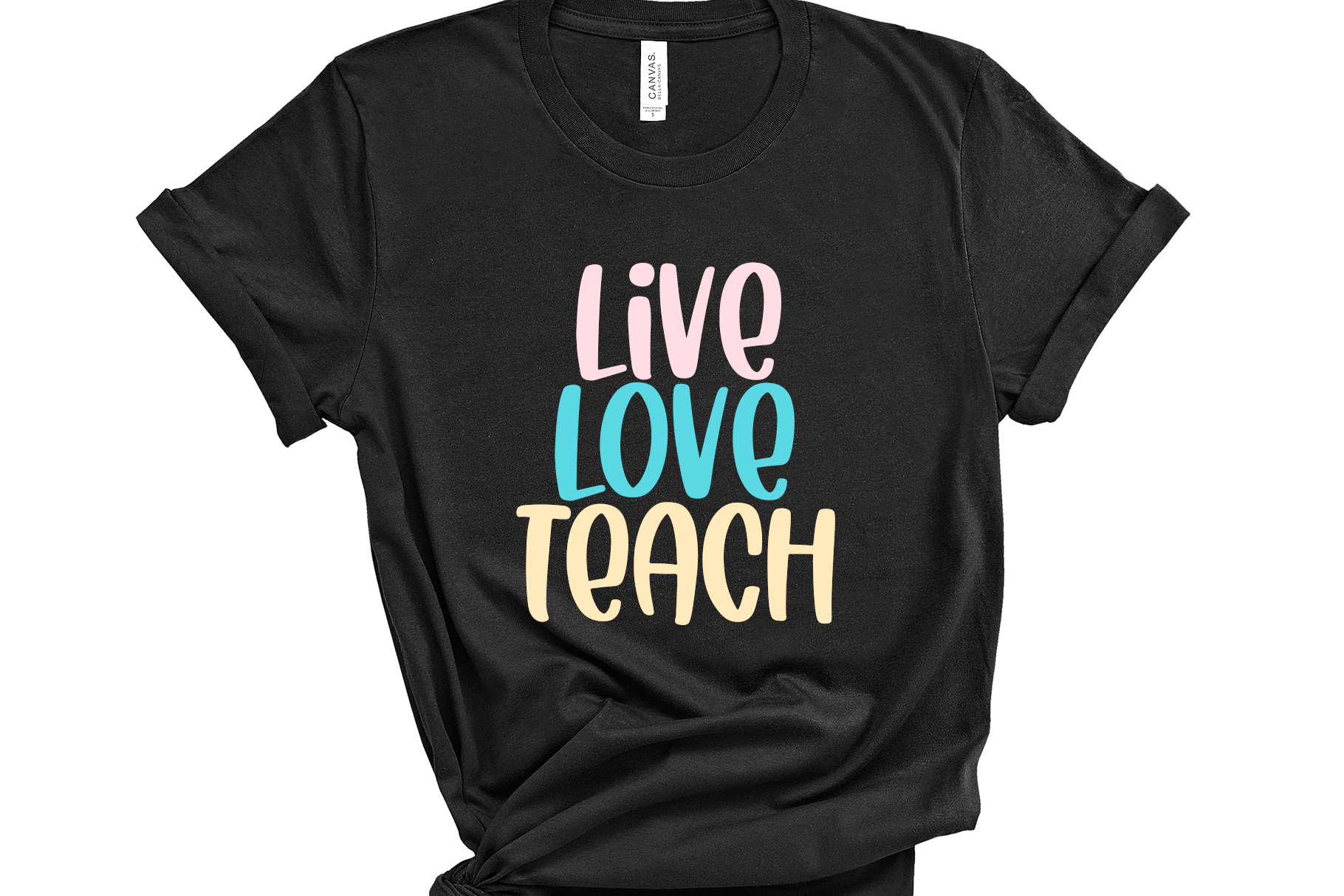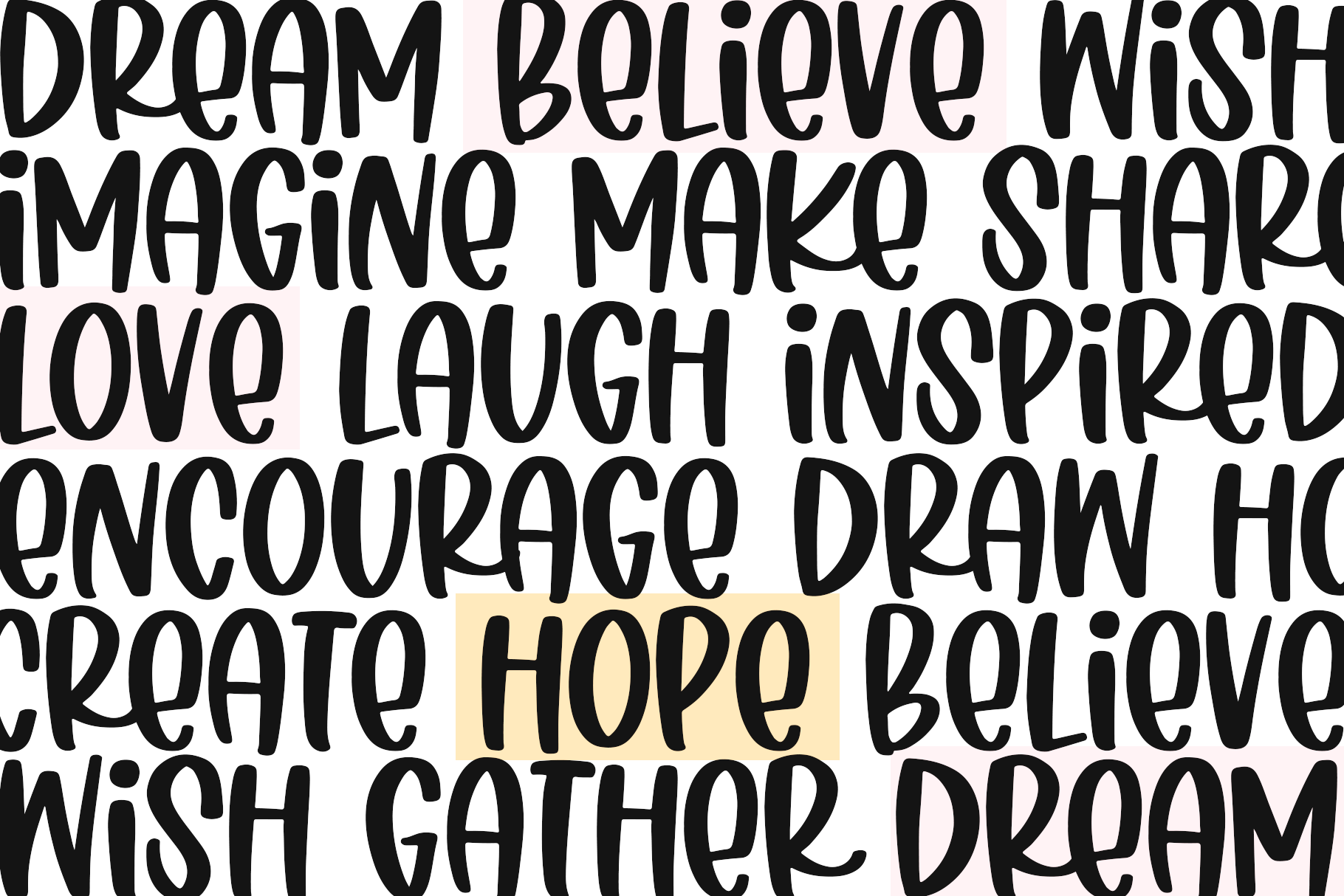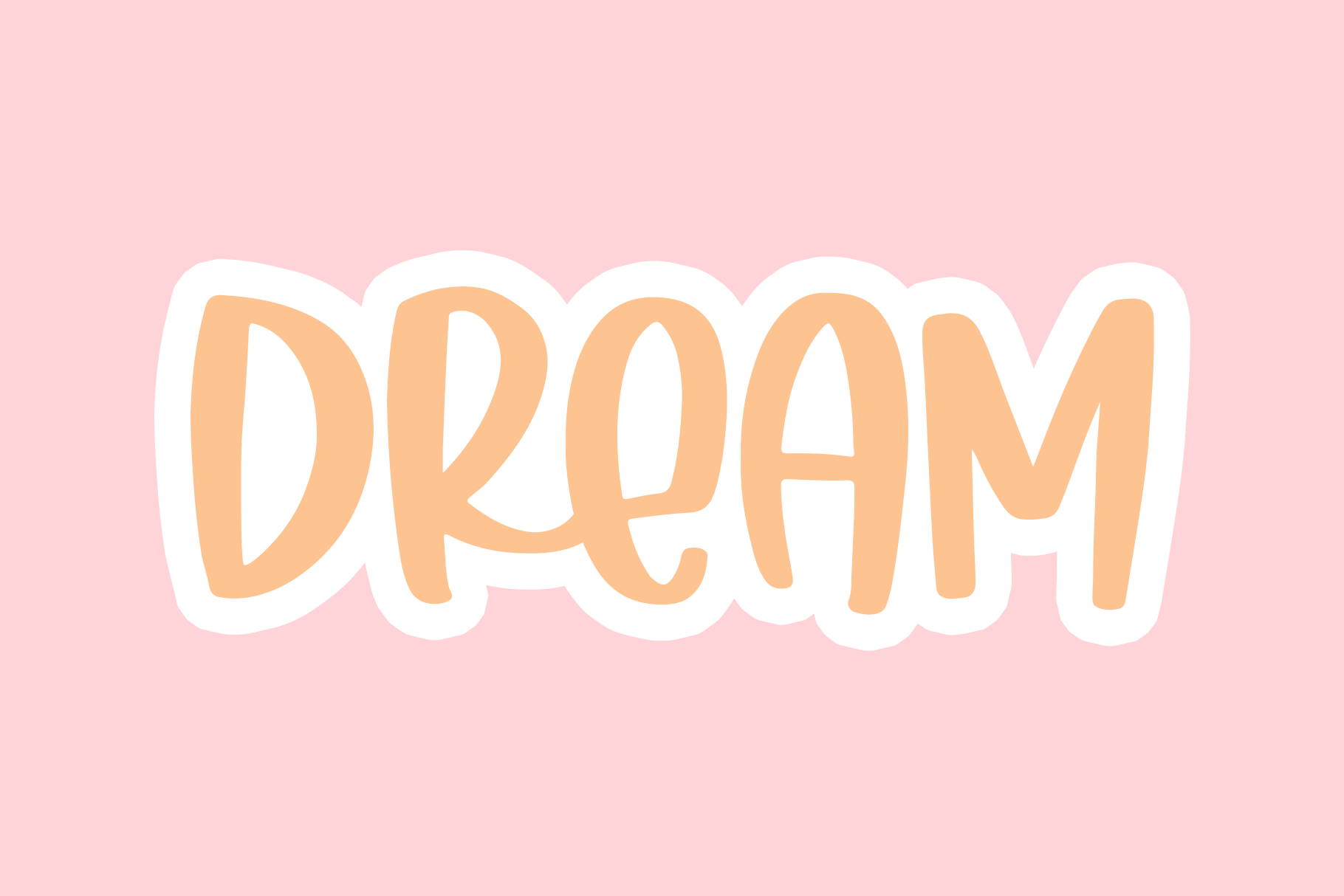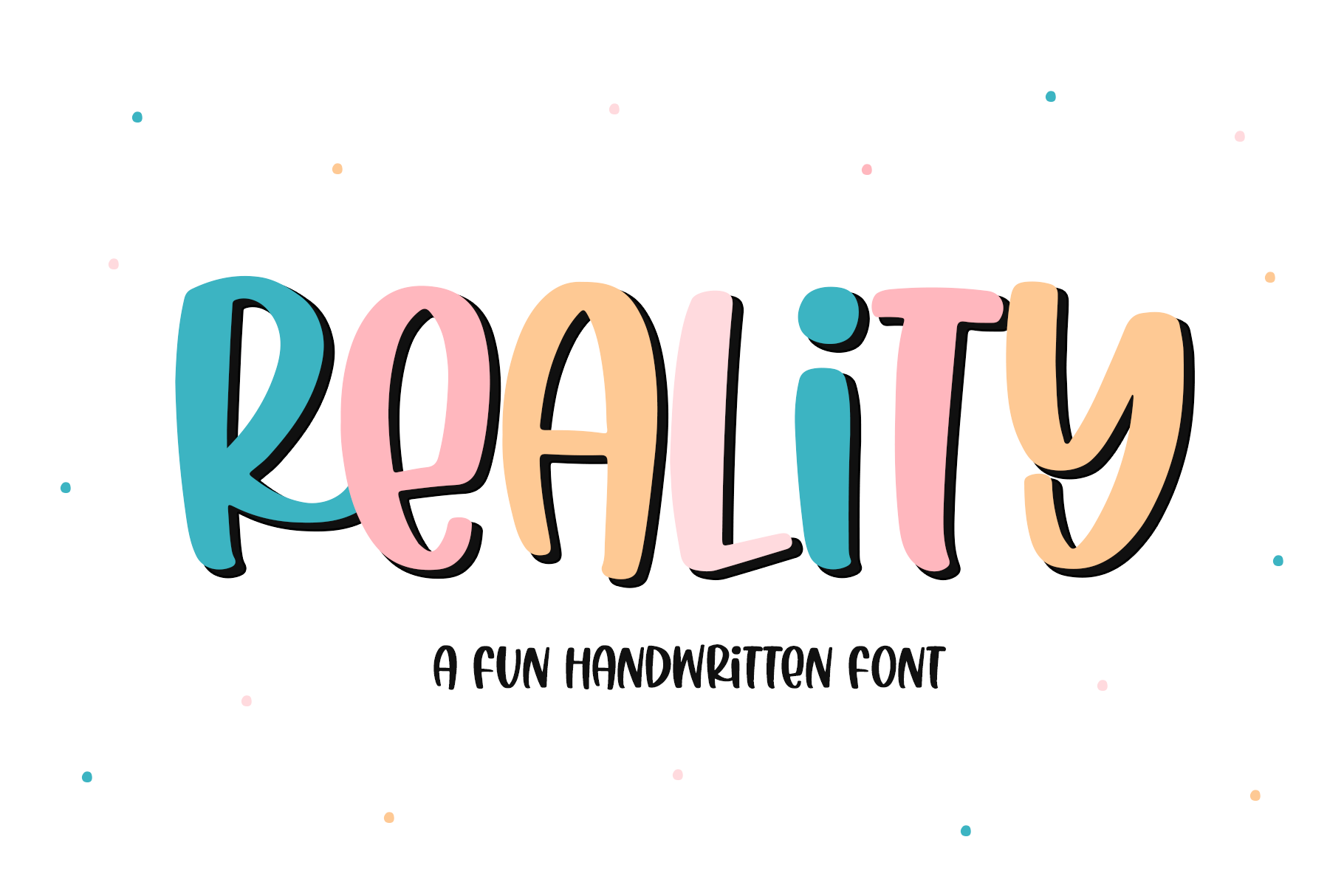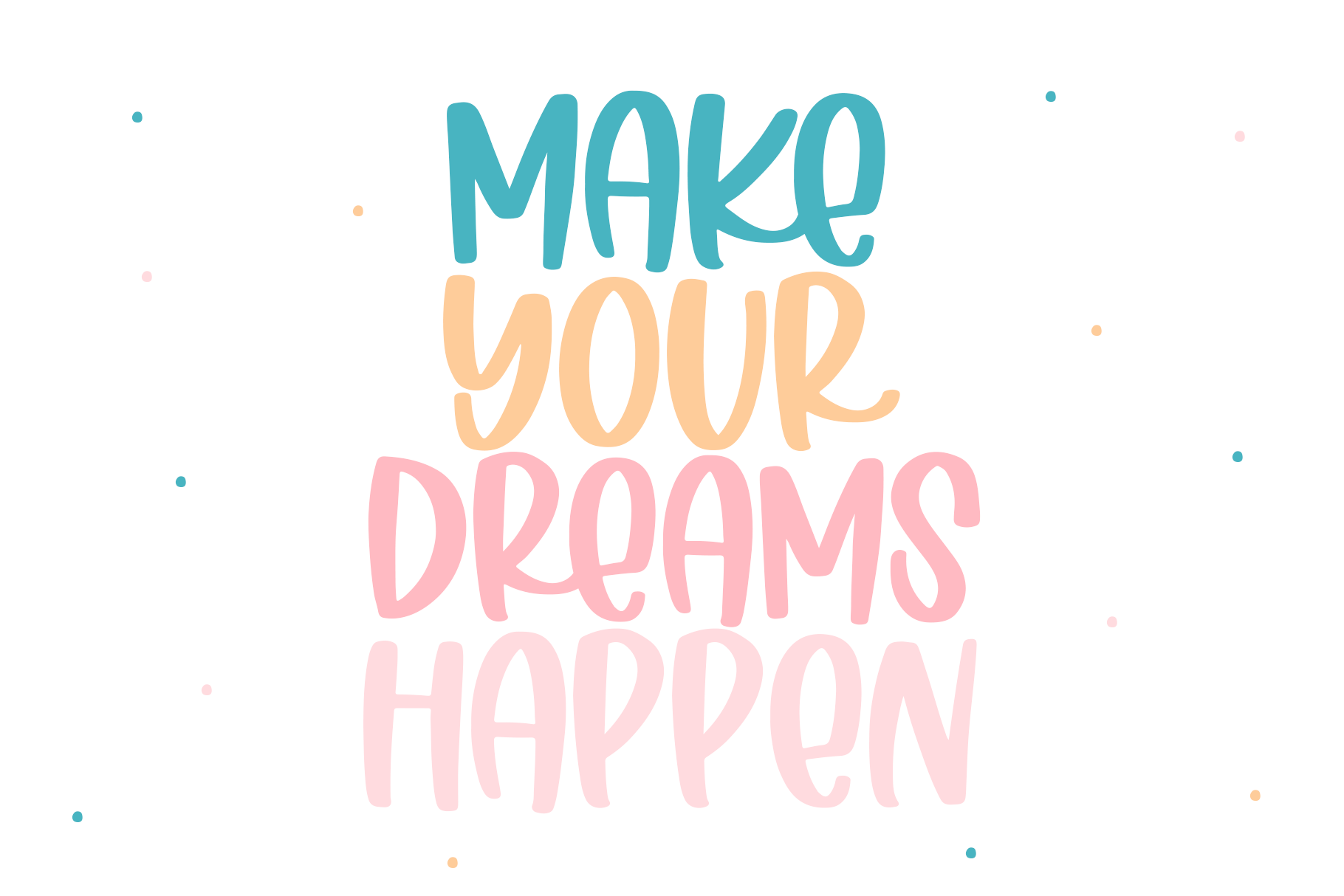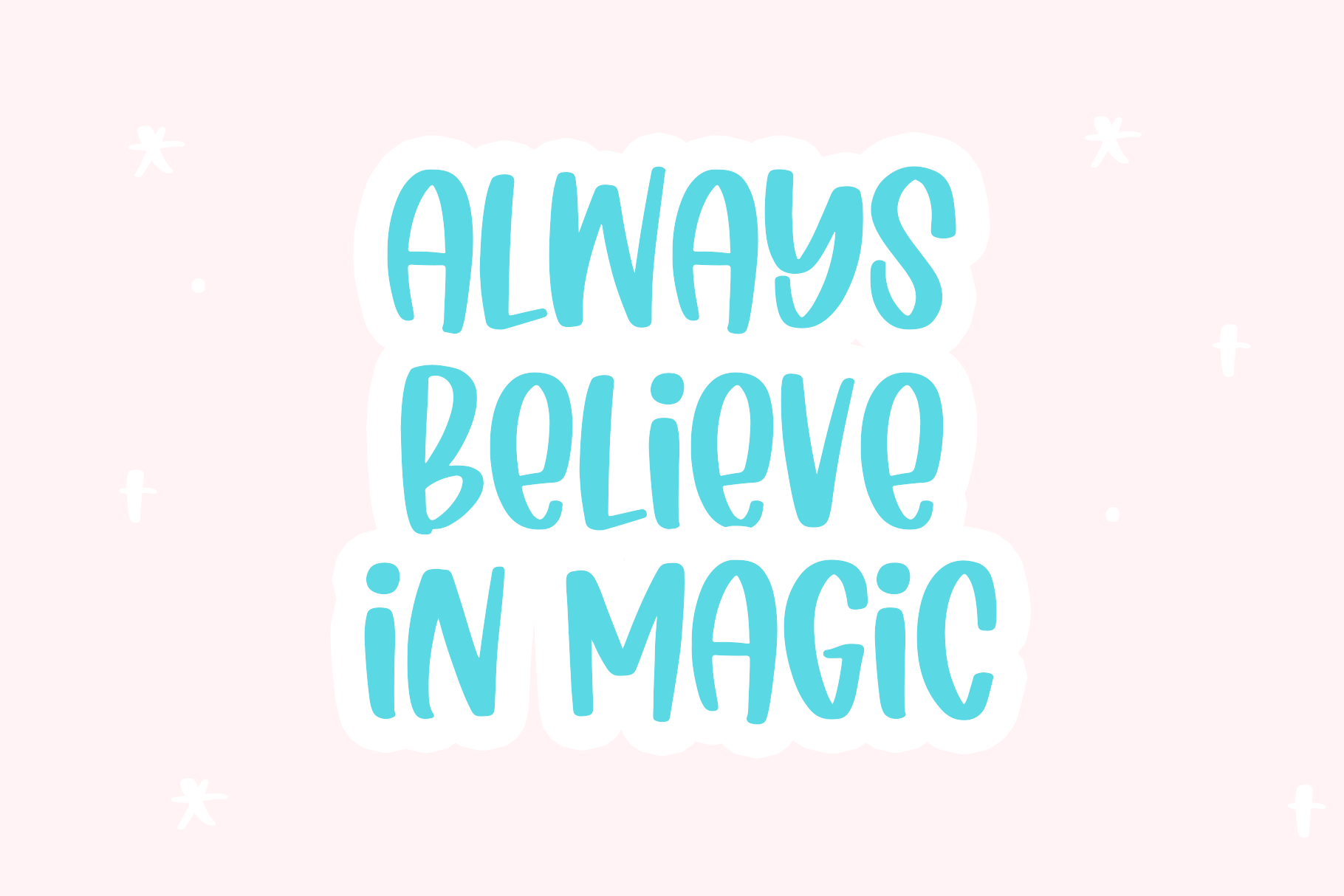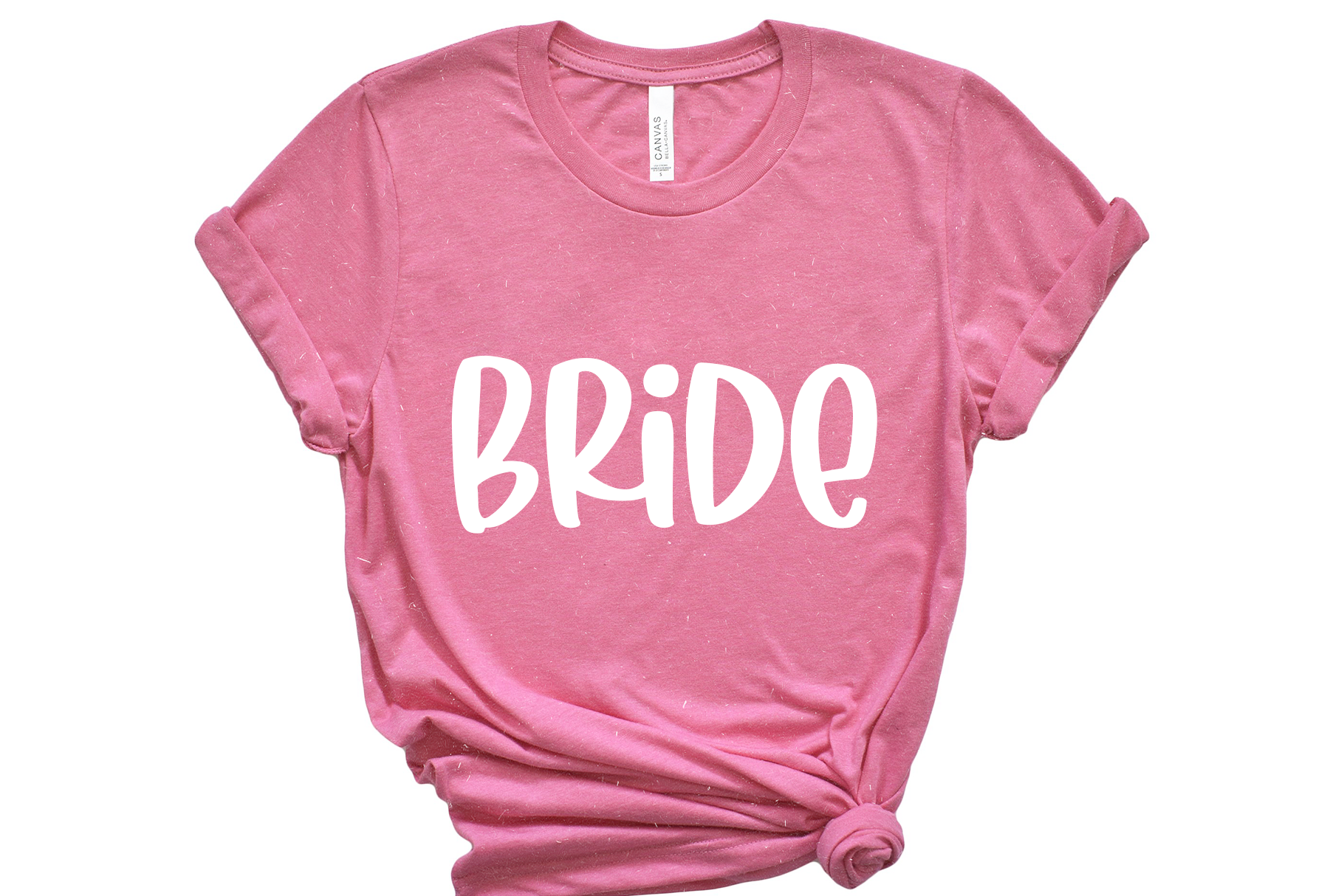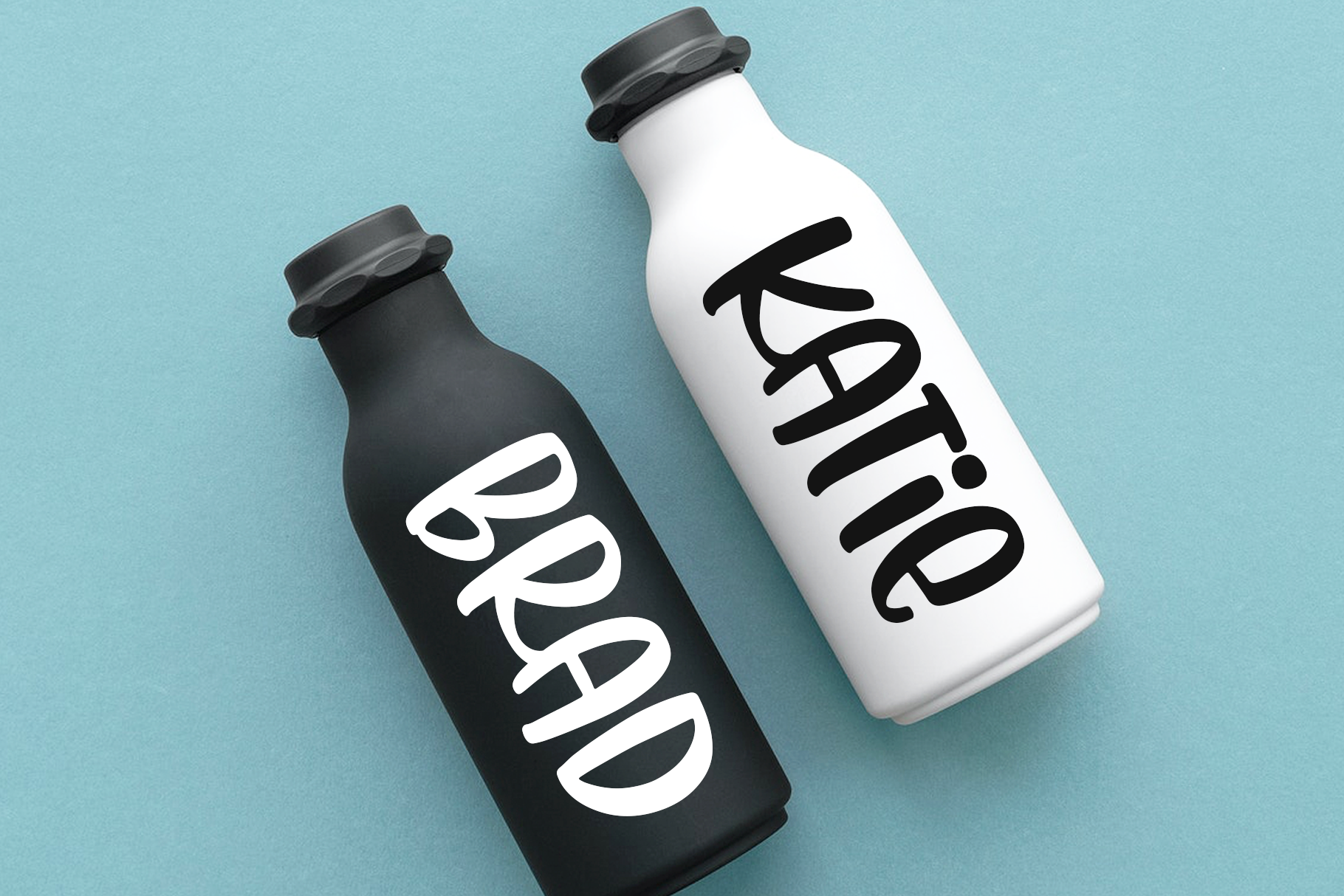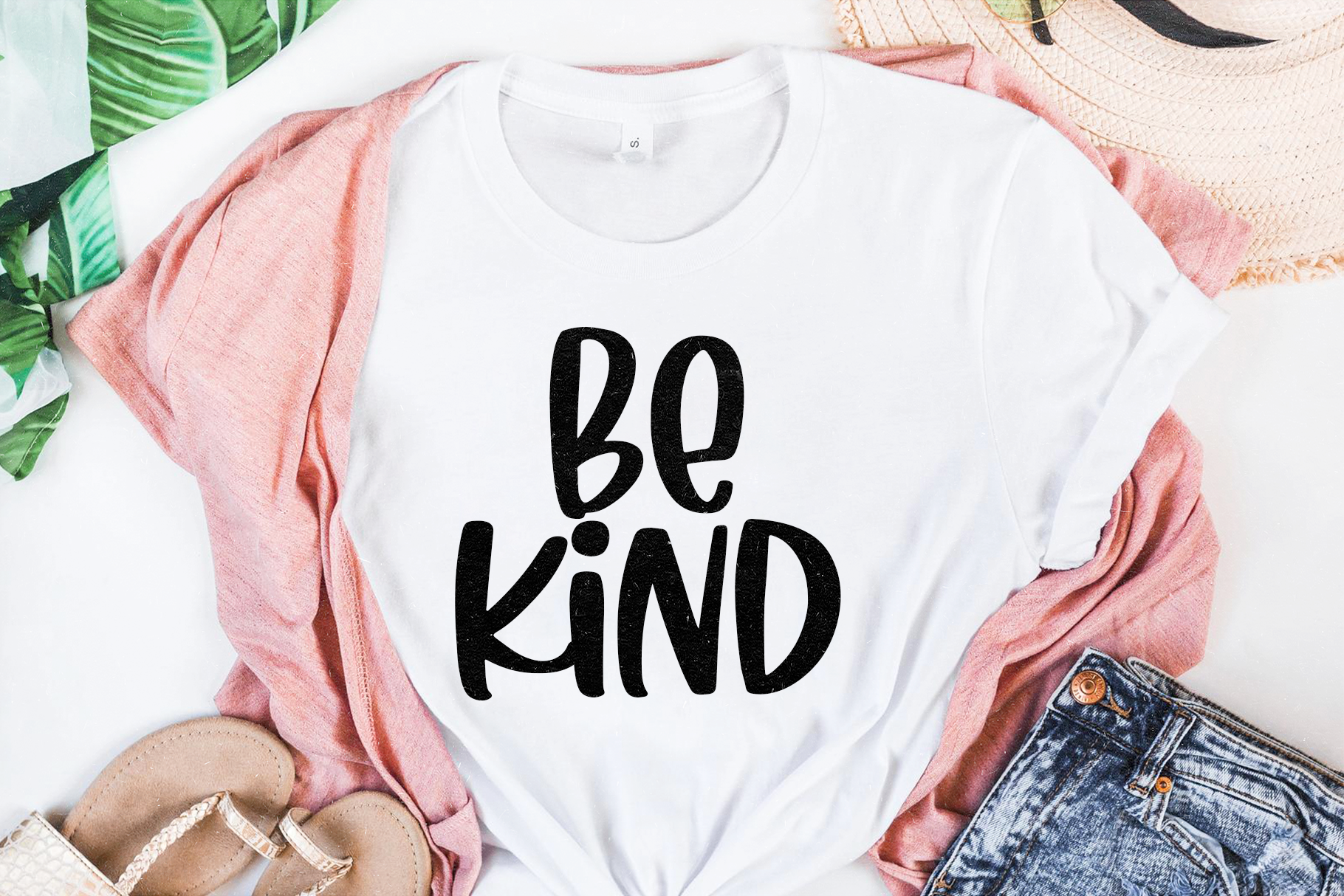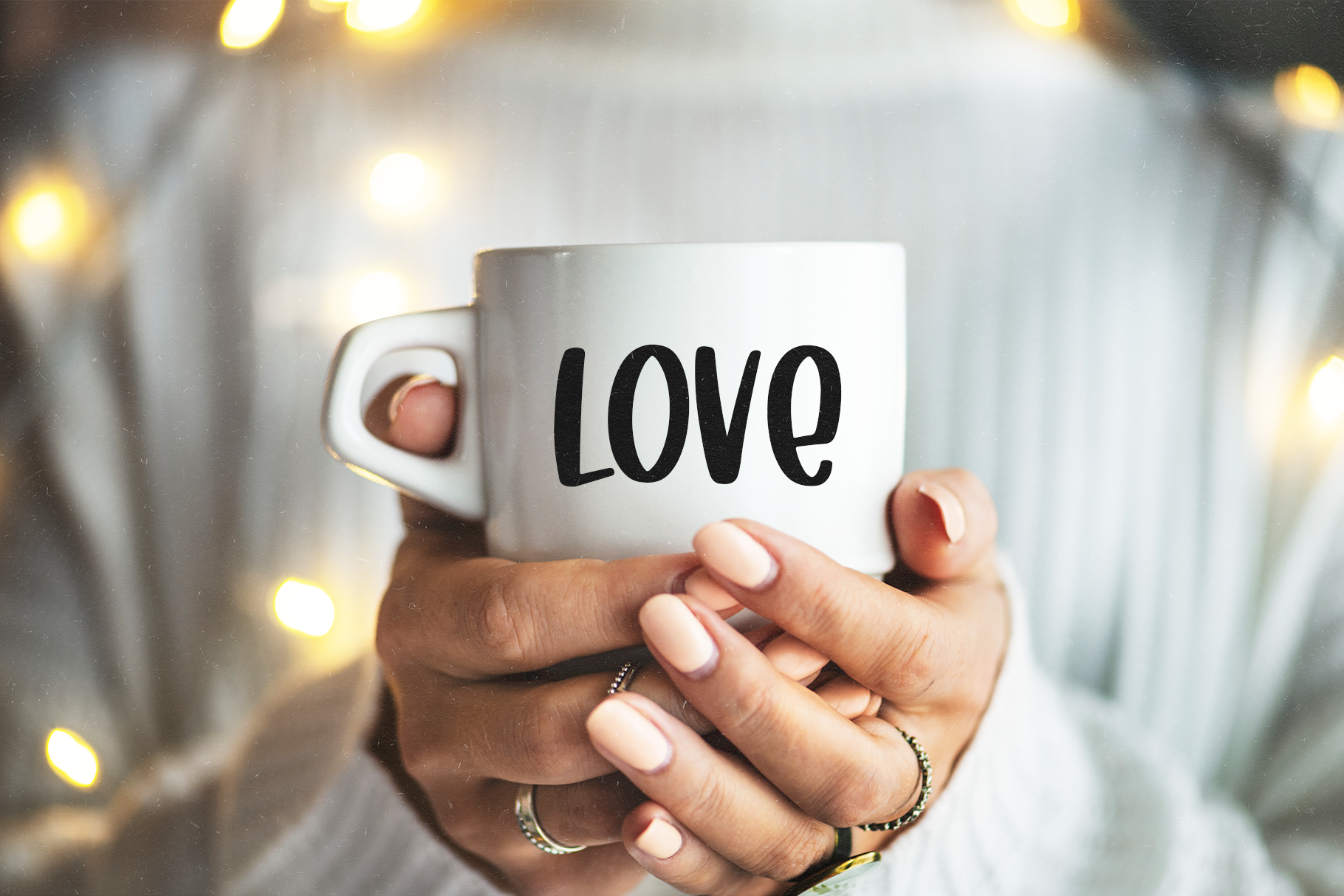
Reality | Fun Handwritten Font by Ka Designs | Creative Market
Reality is a fun + quirky handwritten font! This font is perfect for all of your cricut + crafting projects, branding, shirt design, svg designs and more! - Includes OTF/TTF Thank you! | Reality | Fun Handwritten Font | KA Designs